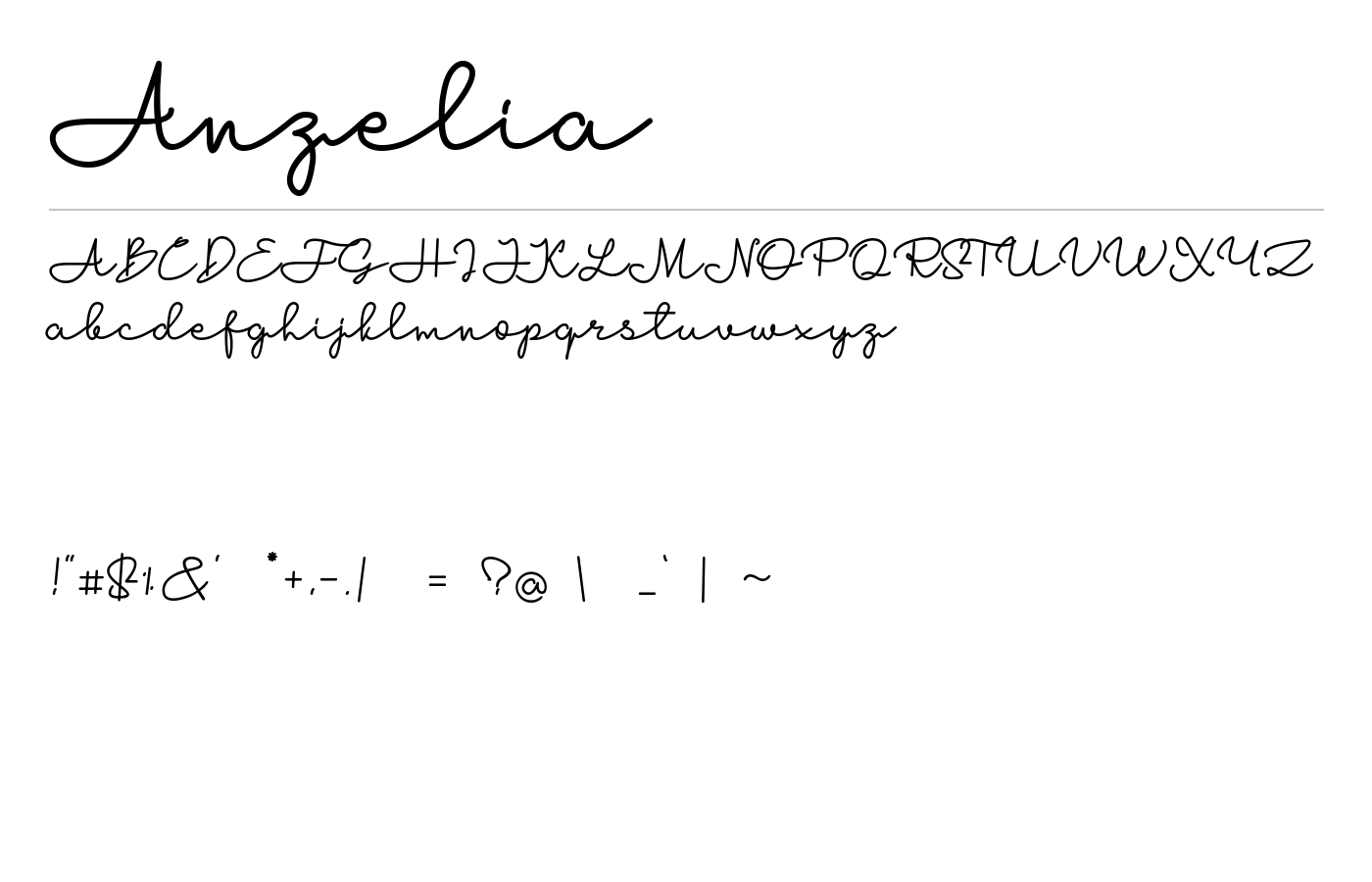
Anzelia is a delicate script font with a handwritten feel, characterized by its smooth, flowing strokes and elegant loops. Its thin, consistent lines and natural cursive style make it perfect for invitations, branding, and any design needing a personal, graceful touch. This font works beautifully in projects that aim for a sophisticated yet approachable look.
Anzelia Font
About Anzelia Font
| Font family | Anzelia Font |
| Designer | Arie Iskandar |